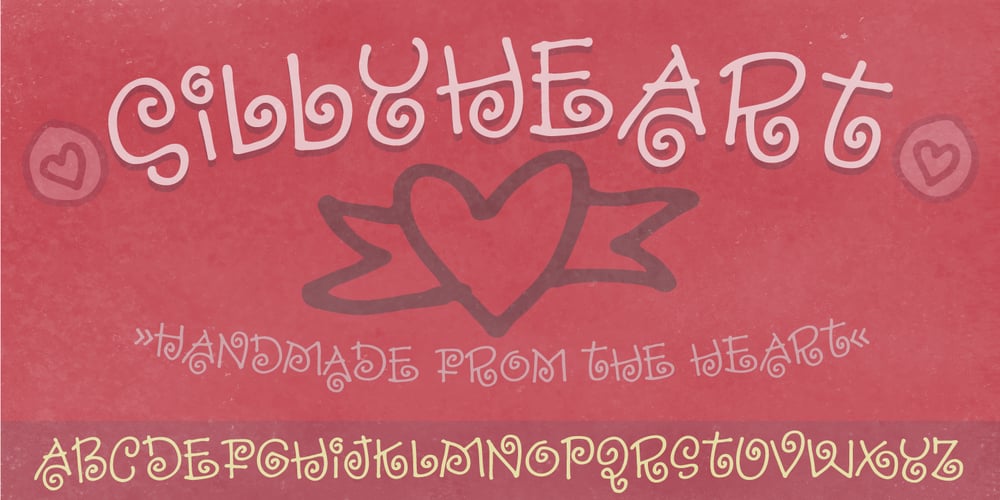
Sillyheart Font Family was designed by Jakob Fischer and published by PizzaDude.dk. Sillyheart contains 2 styles and family package options. There is nothing silly about being romantic. And there is nothing silly about being a Sillyheart! Sillyheart will curl and swurl it’s way, straight to your heart…just like that birthday invitation that needs that little extra, that poster that misses a fresh curl of originality…Sillyheart could do that important difference! Comes with alternate CAPS- and lowercase along with ligatures for double lettering. Oh, almost forgot! – Comes with a bunch of handy hearts to spize up that loveletter! 🙂